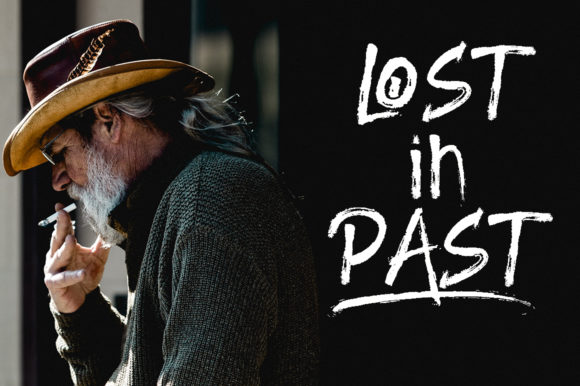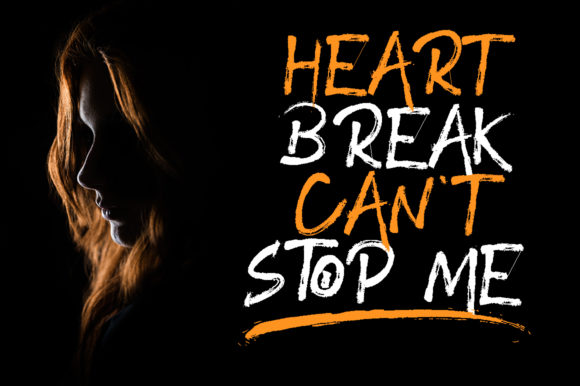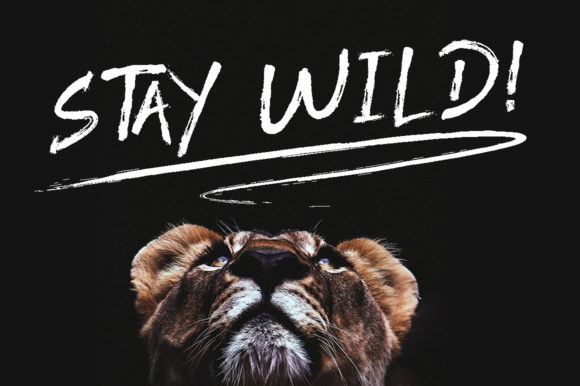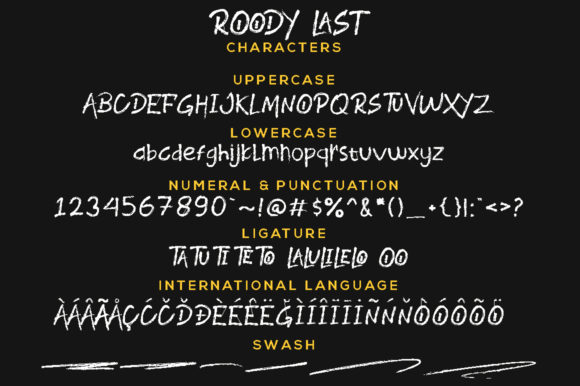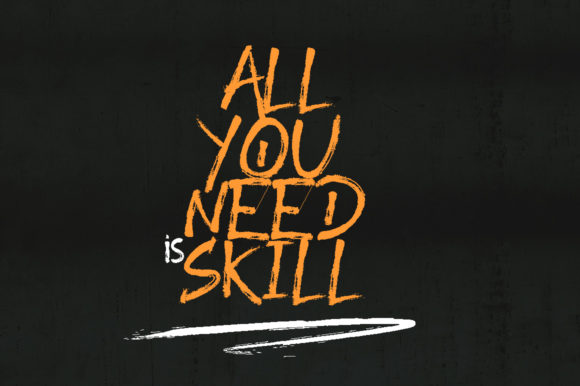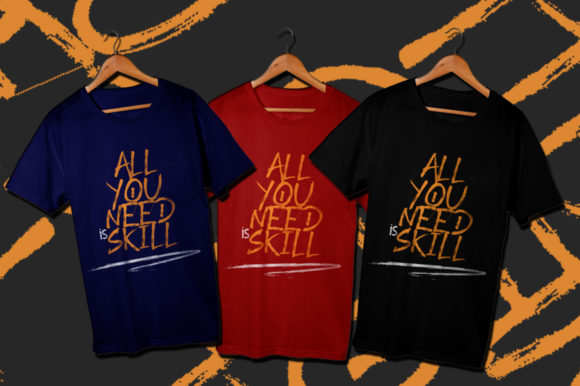
Introduction to Roody Last Font
The Roody Last is a street-wise brush font bursting with energy.
There was payed extra attention to quick strokes and sharp details It has a striking look which makes it perfect to make any design stand out.
Key Features of Roody Last Font